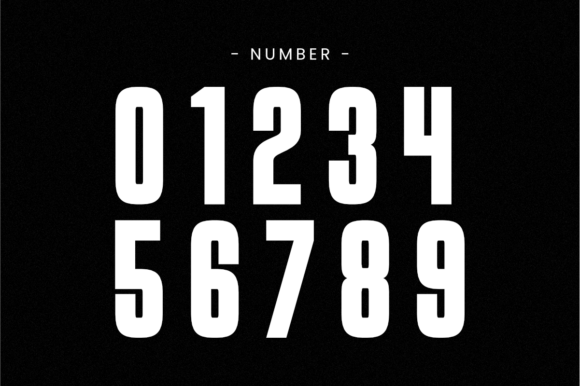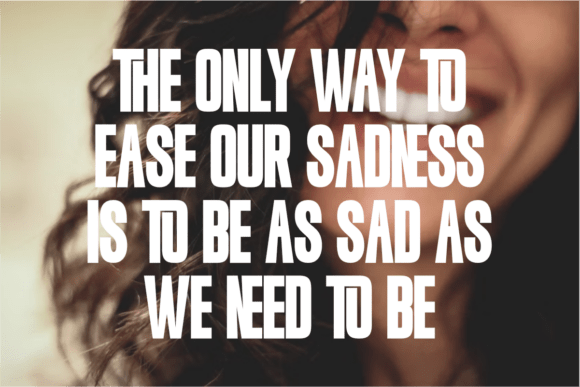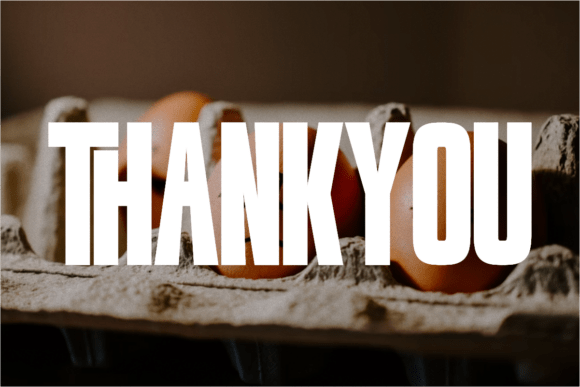
Mood Font
Mood is an ultra-condensed sans serif font with a bold, modern, and distinctive personality.
Its tall proportions and unique letter construction make it perfect for impactful headlines, posters, logos, and branding that stand out instantly.
Whether used for fashion editorials, music covers, sports graphics, advertising, or product packaging, Mood delivers a contemporary edge with strong visual presence. Clean yet expressive, this font is designed to leave a lasting impression on any creative project.